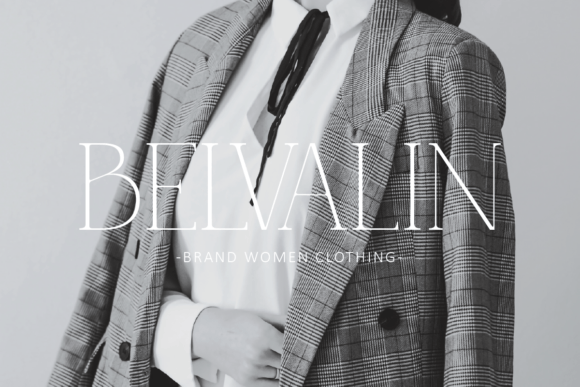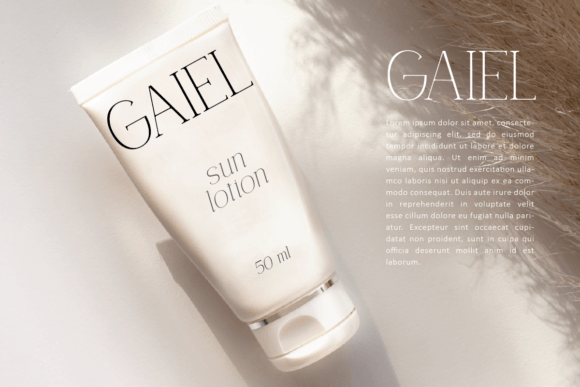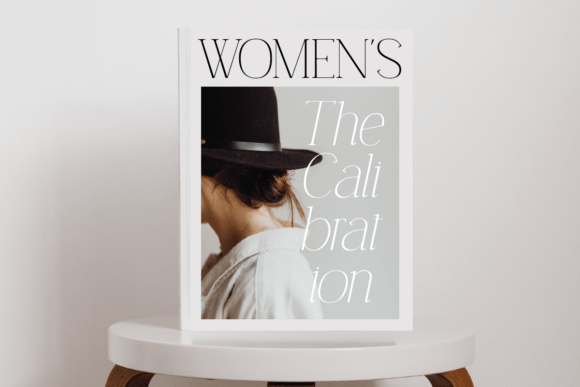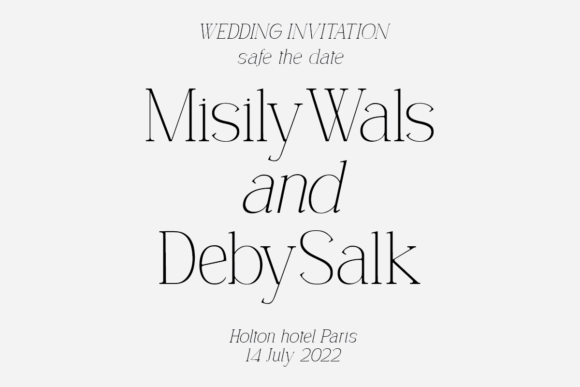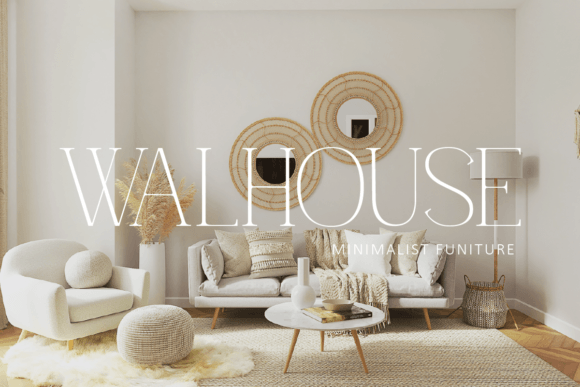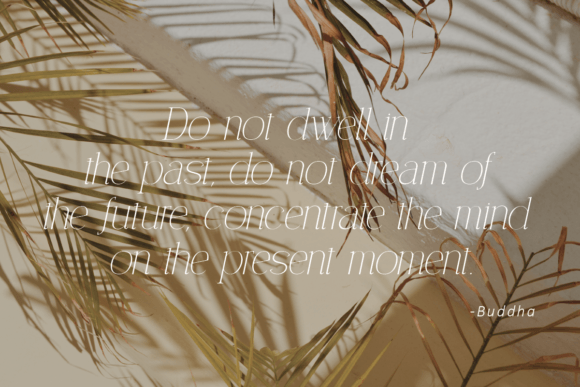
Introduction to Serenity Moment Font
Serenity Moment is an elegant and modern serif font.
Stylish, graceful, and flowing, this font will definitely elevate the look of any of your beautiful creations while keeping them grounded and natural .
Key Features of Serenity Moment Font